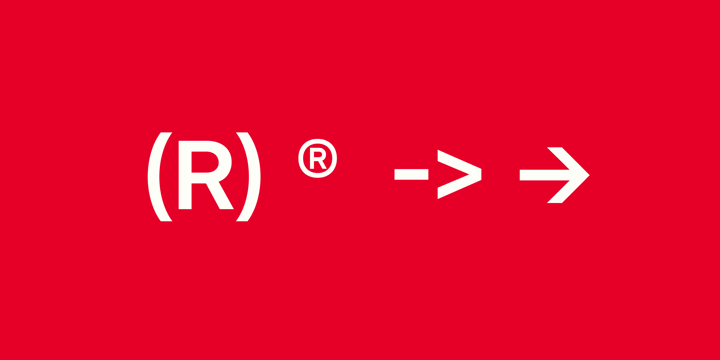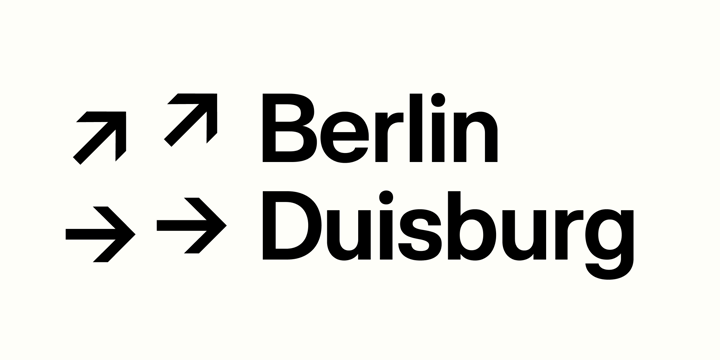
Reyhan
Reyhan by Plantype
Reyhan Font Family was designed by Emin İmamoğlu and published by Plantype. Reyhan contains 18 styles and family package options. More about this family
About Reyhan Font Family
Reyhan is a low contrast typeface that looks legible and clean in small sizes. On large sizes, it wraps the space around. Finely drawn negative spaces, neat and minimal shapes define Reyhan. Simple and clean lines give the typeface a solid and finished look. Reyhan is pure and powerful with well designed proportions.
Different alternatives such as square dots, alternate /a /l /y /R /1 /6 /9, coverage of 94 Latin languages, various Opentype features, and 18 styles expand the usage area of ​​Reyhan, making it a versatile workhorse. With high-quality spacing, Reyhan looks good on all sizes, making it not only a valuable tool for graphic designers but also a total typeface solution for every person who communicates with type. Reyhan is a typeface designed to adapt requirements of modern and traditional communication.